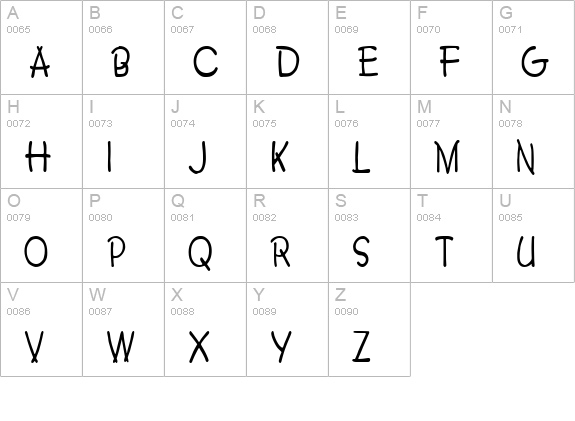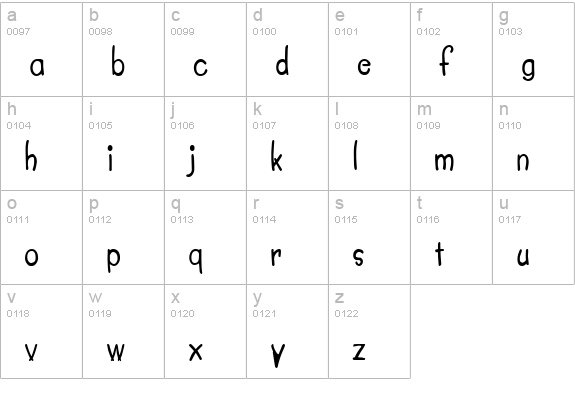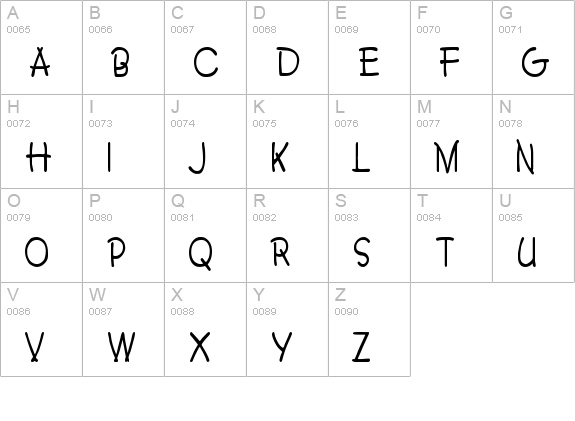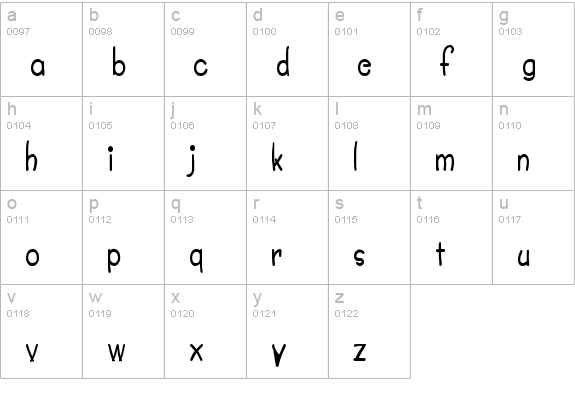
CrayonCondensed Normal Font Details
CrayonCondensed Normal is the standard, neutral variant in the CrayonCondensed typeface family \xE2\x80\x94 well suited to general body text, paragraphs, and standard typographic work.
CrayonCondensed Normal font is a charming and whimsical typeface that brings a playful touch to any design project. Its unique hand-drawn style evokes the nostalgic feel of childhood drawings made with crayons. The condensed form of this font adds a modern twist, making it versatile for various creative applications. This font is available for free download at FontsMarket.com, allowing designers and creatives to easily access and use it in their projects. Whether you're working on a children's book, a poster, a logo, or any other design, CrayonCondensed Normal font will add a fun and vibrant element to your work. Embrace the creativity and joy that this font brings, and let your imagination run wild with its playful charm.